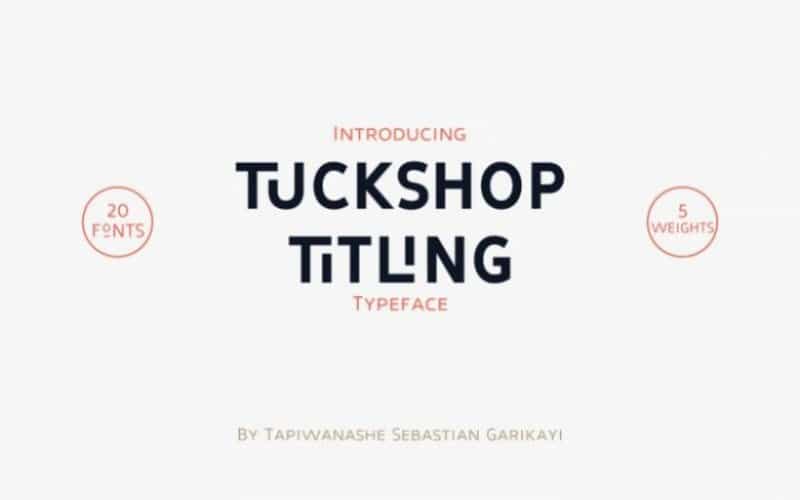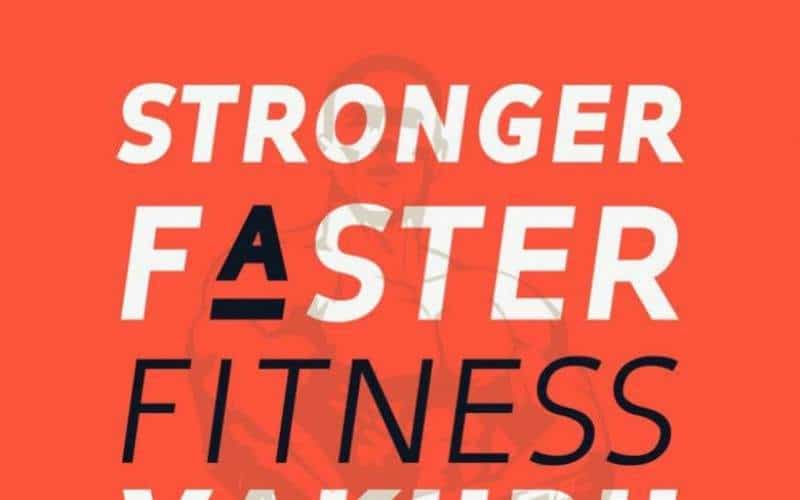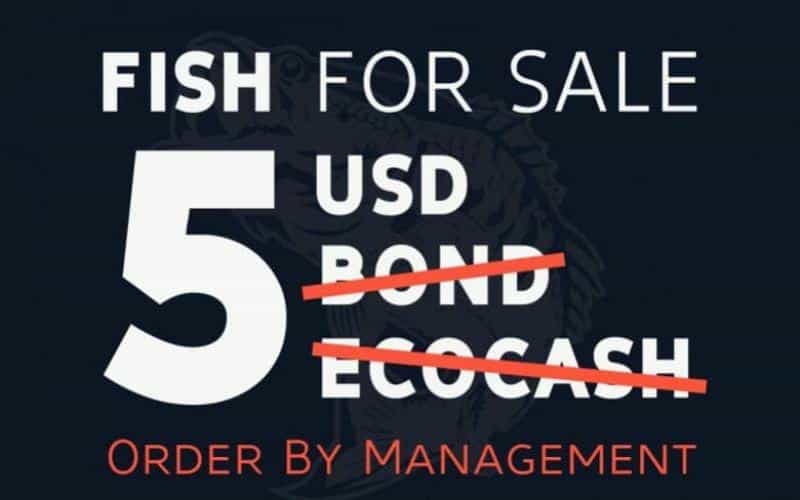
Tuckshop Titling Font Family is a style display font with 7 weights and a total of twenty fonts. Sans f online reality with unique personality and readability in mind. Tuckshop titling sans font designed by Tapiwanashe Garikayi. Tuckshop Titling is an all-caps display font inspired by Tuckshop sign writing in Chinotimba, Victoria Falls; a small town in Zimbabwe. Bold and Boo legible.